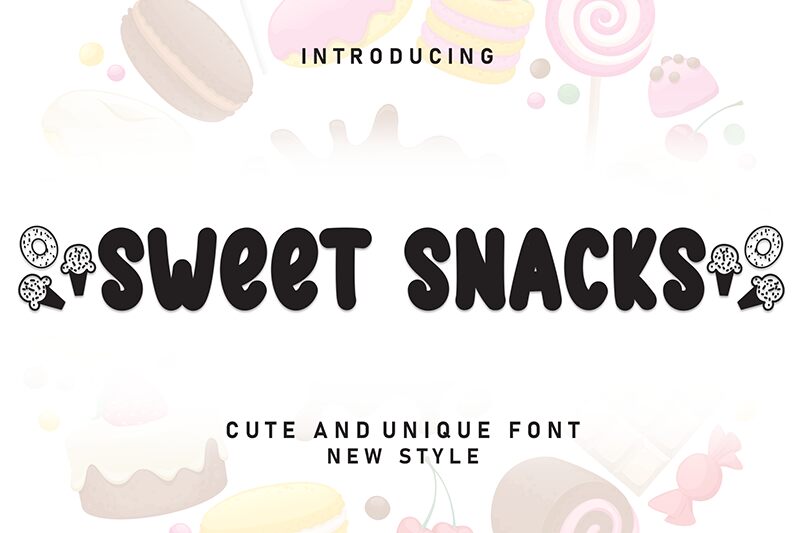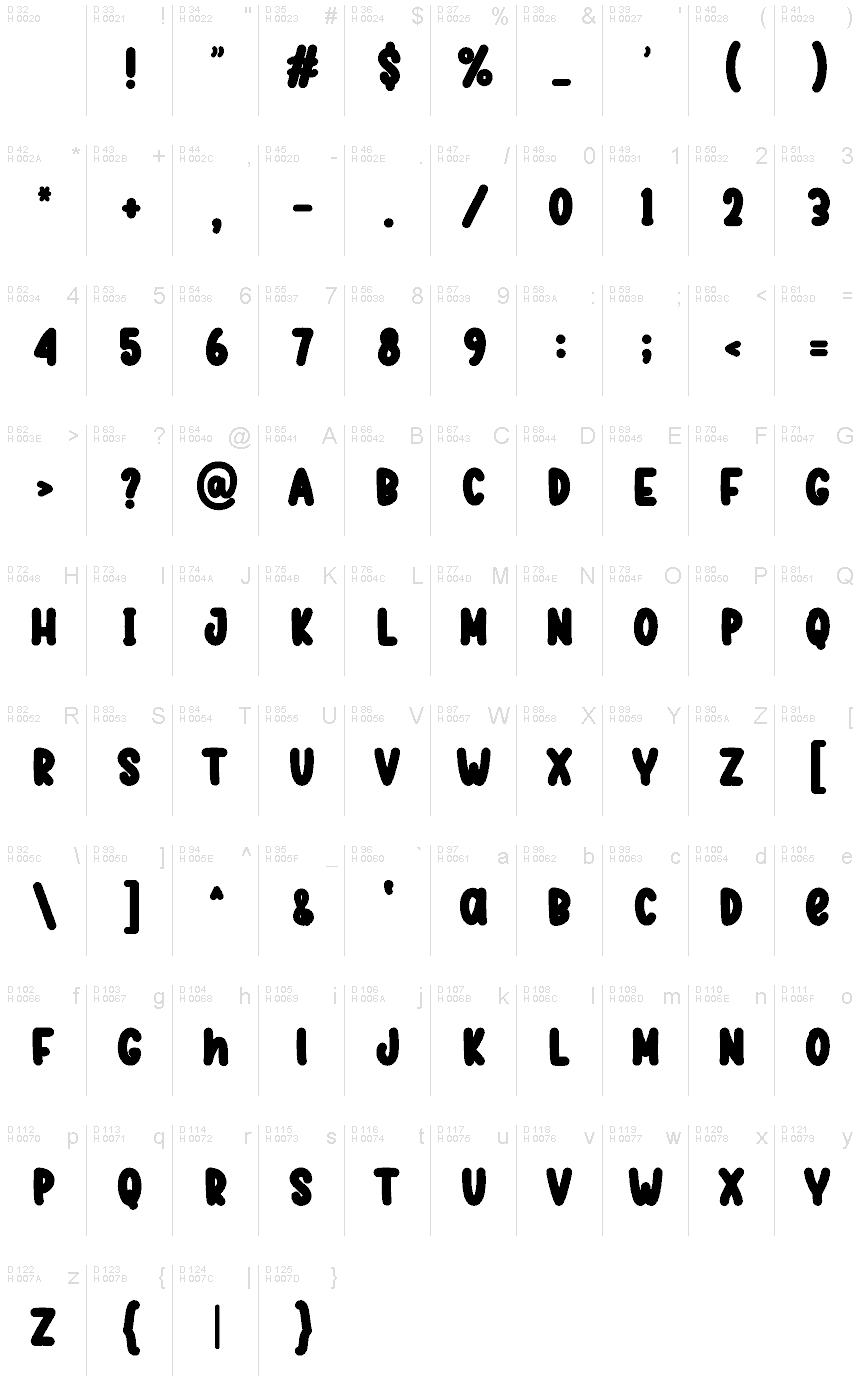
Sweet Snacks
Sweet Snacks font by Andi Moz is a free cartoon display font, both casual and retro-inspired. Friendly, approachable, and bubbly are words that perfectly describe it as a whole. It’s also bold at the weight levels and condensed at the width level, in addition to rounded letterforms.
Suitable use cases include headlines, subheadings, packaging design, print projects, apparel designs on T-shirts or similar items at times even more visual-heavy projects like page layouts to improve UX/UI experience overall!